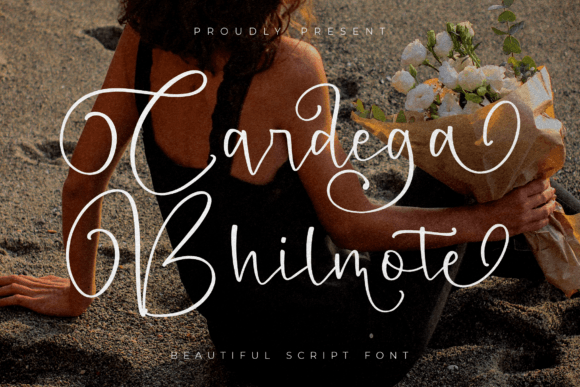
Behold Cardega Bhilmote – a breathtaking script font that transforms your designs into captivating expressions of art. As a creative professional, you understand the significance of visual appeal, and this font delivers an enchanting experience like no other. Its flowing curves and elegant strokes ignite a sense of wonder and captivate the hearts of those who behold it.
Imagine your school website adorned with Cardega Bhilmote; the headings and titles become exquisite works of art that draw the reader's attention. Witness the transformation as ordinary words become captivating messages, inviting exploration and engagement. The font's charm lies in its versatility; it seamlessly adapts to various styles and themes, making it the perfect choice for diverse projects.
Branding projects take on a new dimension with Cardega Bhilmote, as it infuses logos and visual identities with a touch of sophistication. The intricate details and graceful lines evoke a sense of heritage and craftsmanship, making your brand stand out from the crowd. Unleash your creativity and let Cardega Bhilmote weave its magic into your designs.
Homeware designs are elevated to new heights with Cardega Bhilmote, adding a touch of elegance to everyday objects. Product packaging becomes visually stunning, alluring customers with its enchanting appearance. Mugs, quotes, posters, and shopping bags adorned with Cardega Bhilmote become cherished possessions, admired by all who see them.
Cardega Bhilmote is the font that breathes life into your creations, making them captivating and memorable. From book covers to name cards, invitation cards to greeting cards, labels to photography, and much more, this font adds a touch of magic that sets your work apart. It's the perfect choice for those who seek artistic excellence and a font that truly reflects their creative vision.